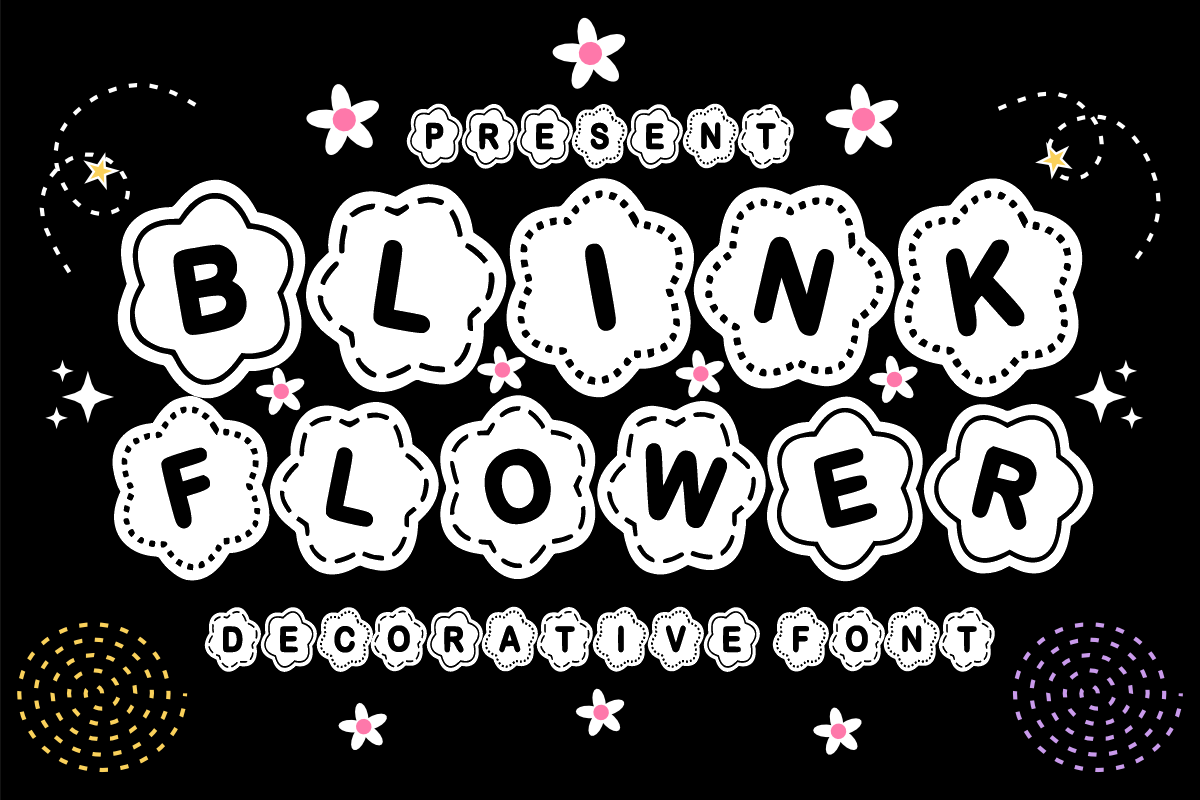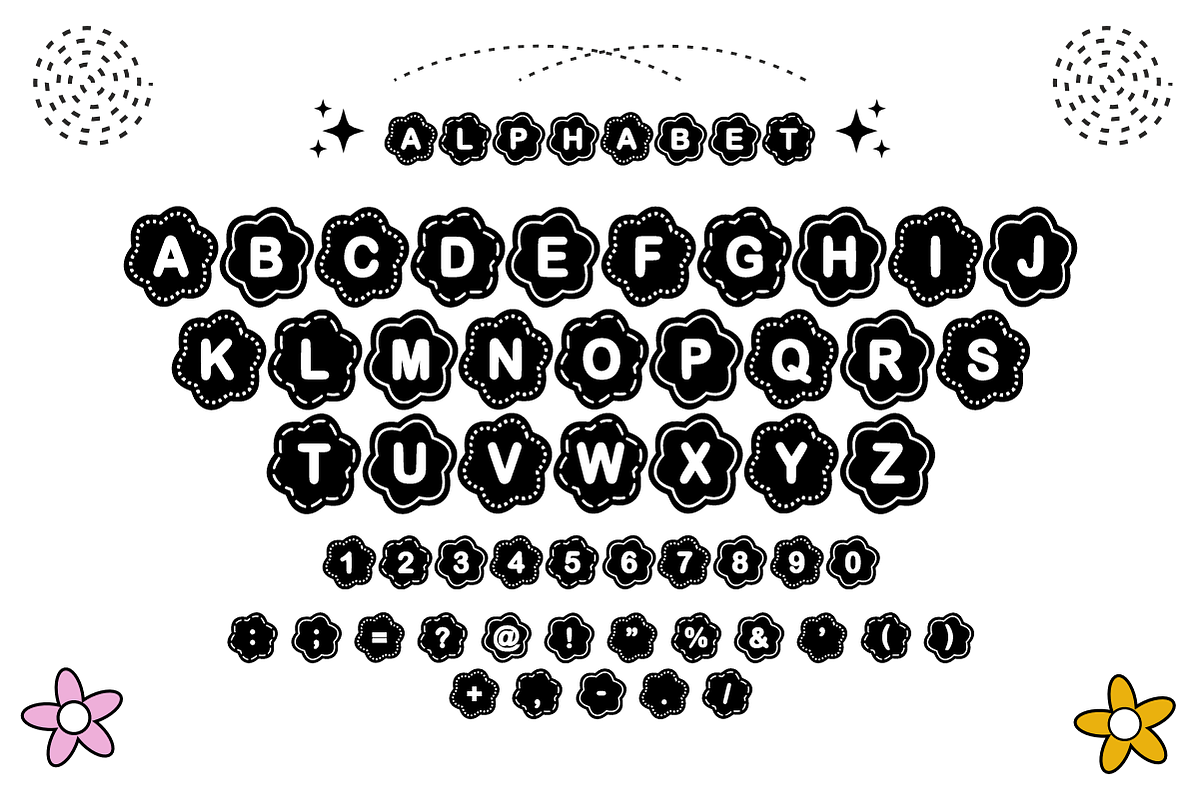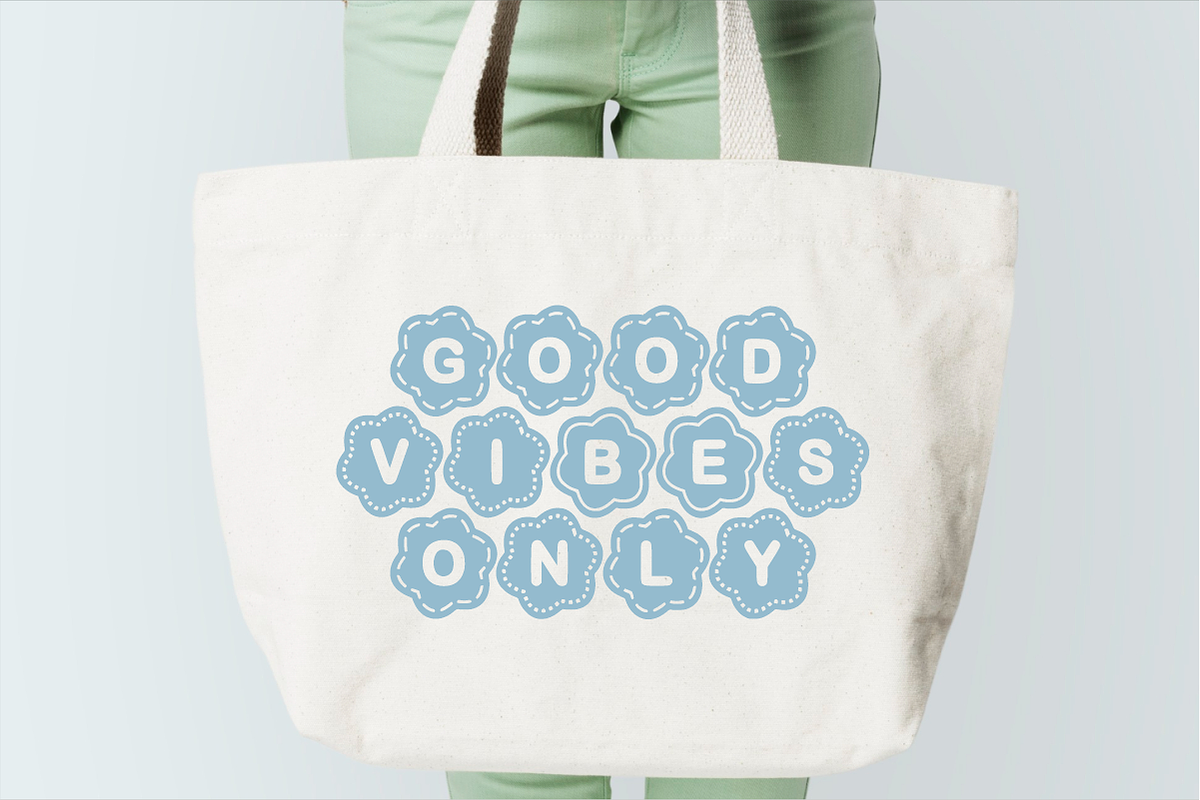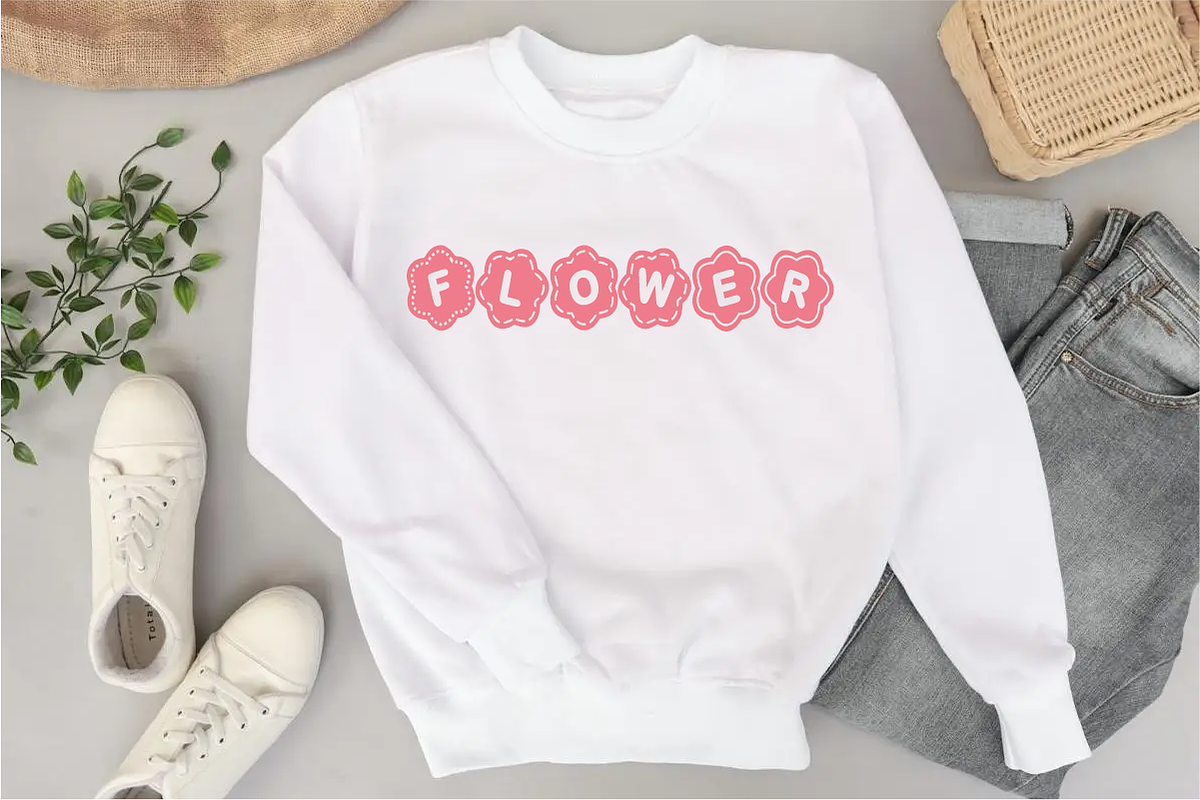
Blink Flower - Cute Floral Font
Blink Flower is a whimsical, decorative display font featuring cute hand-drawn letters set inside scalloped flower frames with stitched outline accents. Full of sweet floral charm, this playful font brings a lovely, handcrafted pop to your spring designs, custom sticker packs, and boho crafts. Every character features clean vector lines to guarantee high-resolution prints and smooth, effortless cutting on Cricut and Silhouette machines.
Uppercase Character Set
Numbers & Basic Punctuation